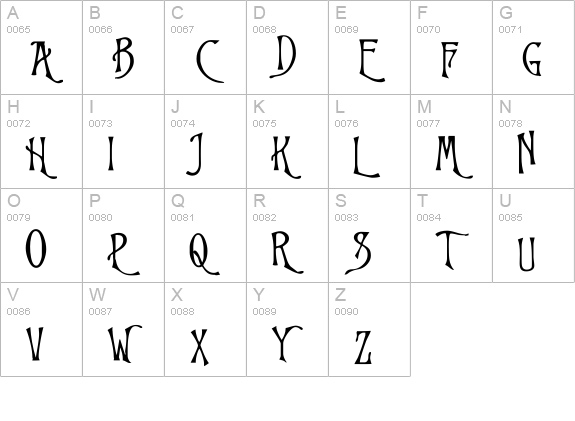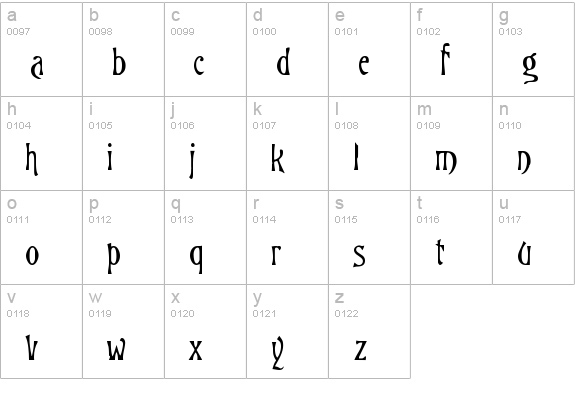
Burton's Nightmare 2000 font is a hauntingly beautiful typeface inspired by the dark and whimsical world of renowned filmmaker Tim Burton. This unique font features twisted and intricate letterforms that capture the essence of gothic horror and macabre fantasy. Perfect for adding a touch of eerie elegance to your designs, Burton's Nightmare 2000 font is sure to make a bold statement. And the best part? This captivating font is available for free download at FontsMarket.com. Embrace the darkness and unleash your creativity with Burton's Nightmare 2000 font today!